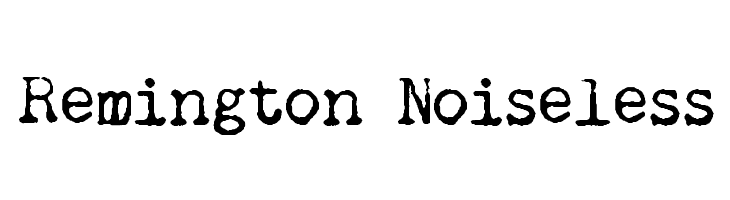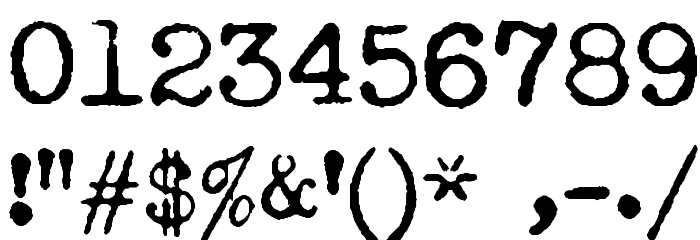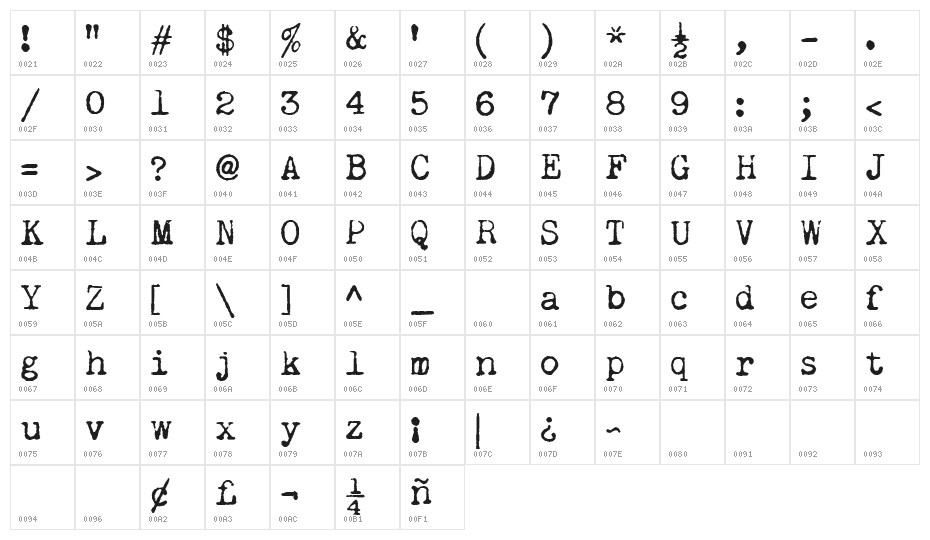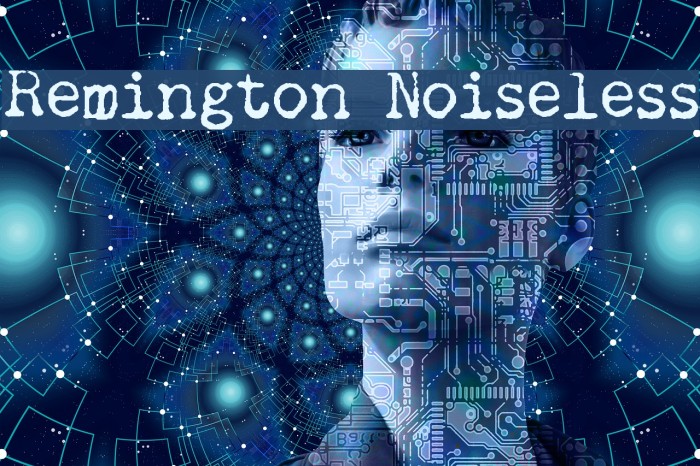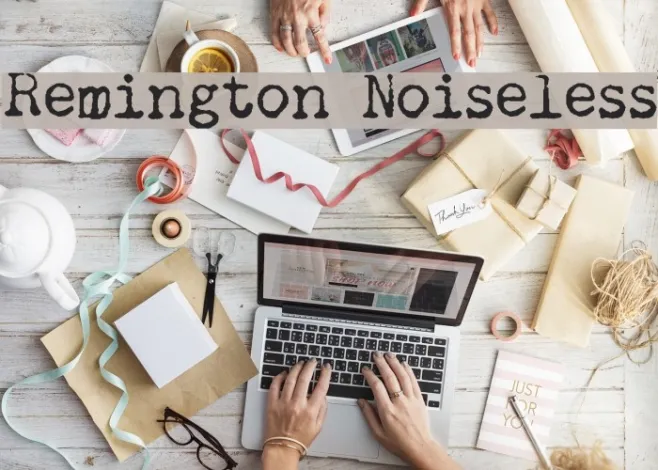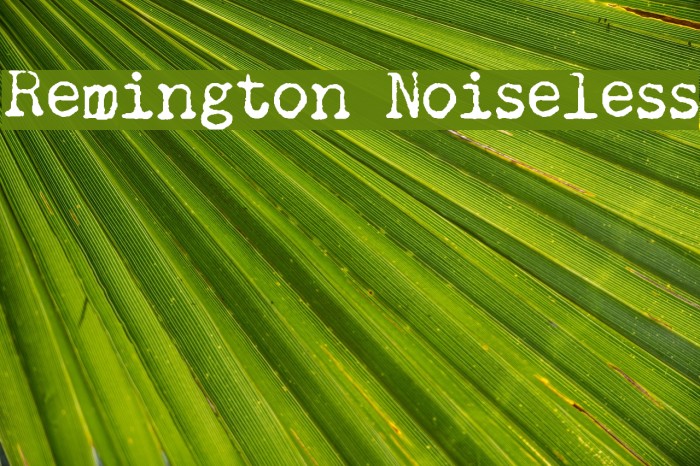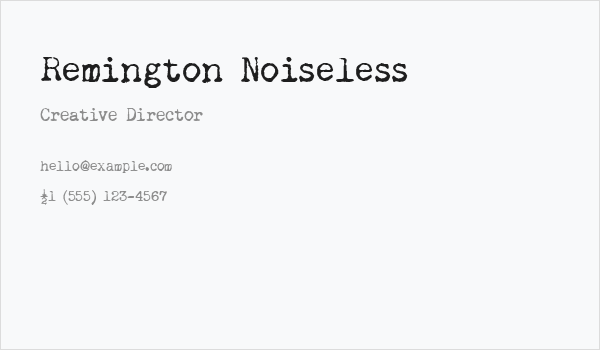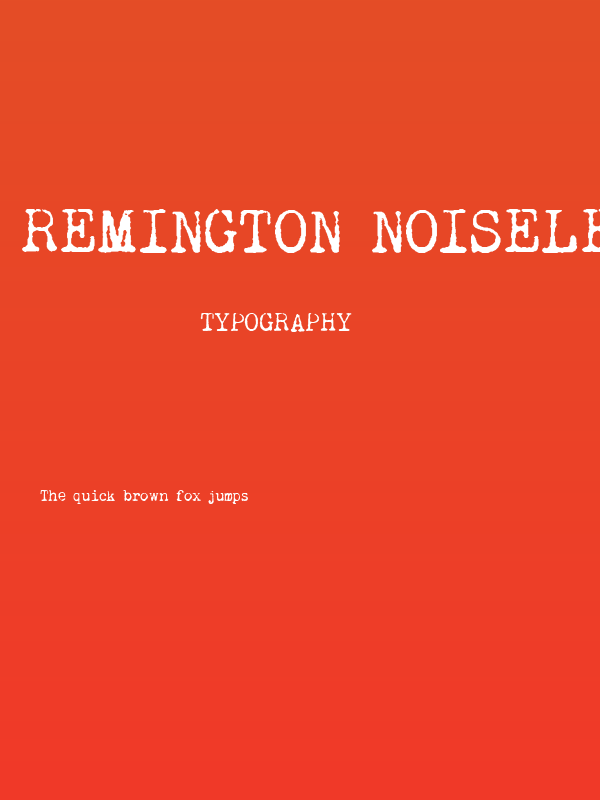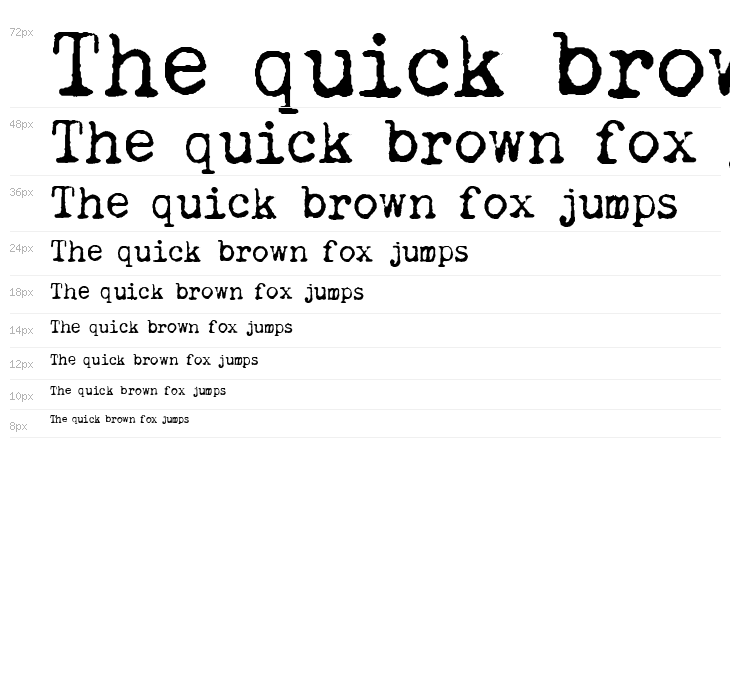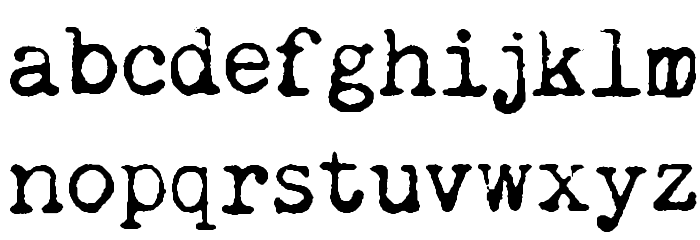
Remington Noiseless Font
Remington Noiseless Description
This typeface exudes a vintage charm reminiscent of old typewriter fonts. Each character is distinct with a slightly irregular edge, giving it an authentic, worn look. The uppercase and lowercase letters maintain a consistent style, with rounded edges and a bold presence. Numbers and special characters follow the same aesthetic, ensuring uniformity across all elements. The font's texture suggests a historical or nostalgic feel, making it ideal for projects that aim to evoke a sense of the past. Its boldness and unique character shapes make it stand out, while the overall design remains legible and clear.
Overall StyleVintage
Use CaseHeadlines, Logos, Decorative text
Proposed ProjectsIdeal for retro-themed designs, vintage posters, historical documents, and creative projects that require a nostalgic touch.